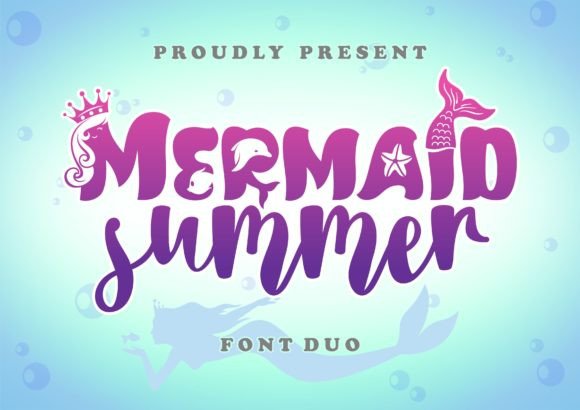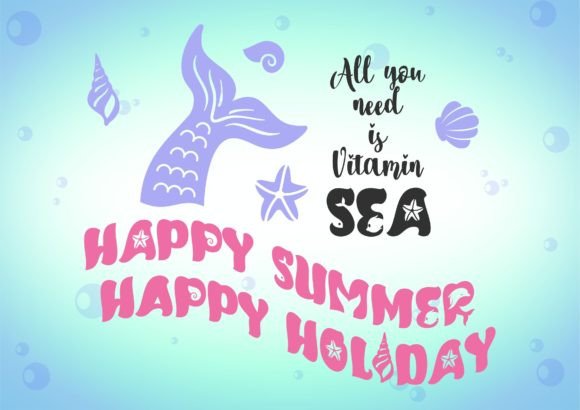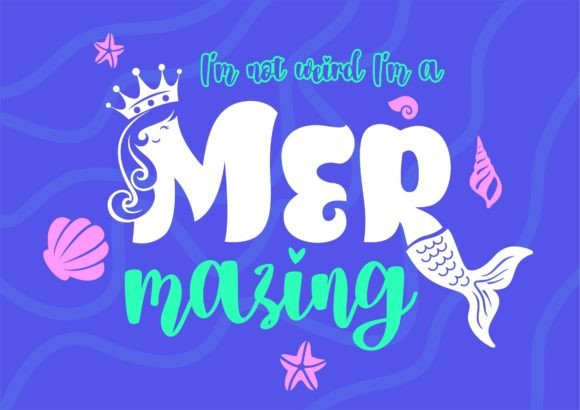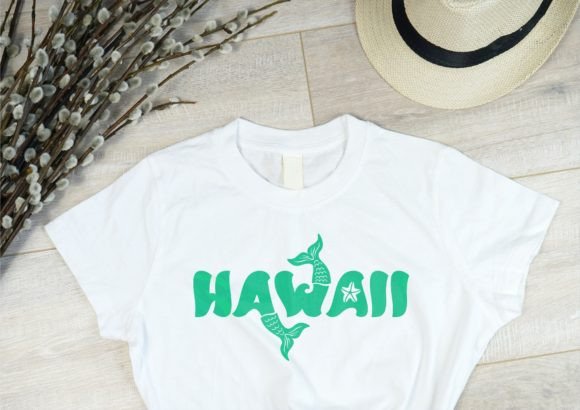
Mermaid Summer Duo Font
About the Mermaid Summer Duo Font
Explore the possibilities with Mermaid Summer Duo Font, a font that offers both beauty and functionality. Mermaid Summer is a lovely and cute font duo. Together or separately, these fonts are ideal for adding a fun and charming touch to your craft, especially for those who need a beach and ocean vibe.
Mermaid Summer Duo is best suited for headlines, short text blocks, and branding projects requiring a playful, summery feel. Its charm works well on packaging for beach-themed products, invitations, and social media graphics. However, avoid using it for large bodies of text or UI elements; its decorative nature makes it less legible in extended use.
The font’s core personality is lighthearted and friendly. To complement this, consider pairing it with a clean sans-serif like Montserrat for a modern contrast, or a classic serif like Playfair Display for a touch of elegance. For a more playful look, a handwritten script font could work well.
Avoid pairings with overly bold or geometric sans-serifs, as these would clash with Mermaid Summer’s delicate forms.
Mermaid Summer Duo Font Usage Examples
Mermaid Summer Duo Font Example